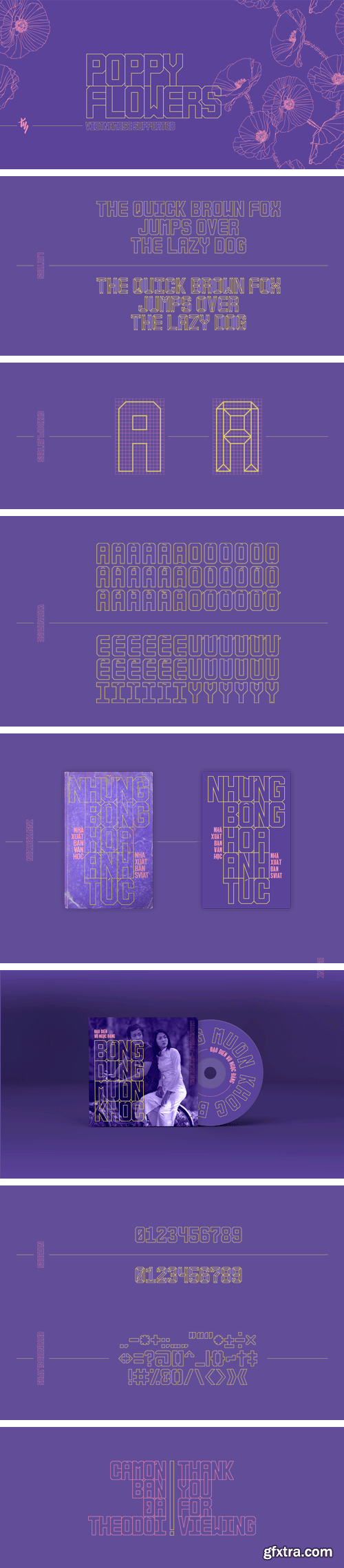
Poppy Flowers Font
Poppy Flowers is a vintage font inspired by the illustrations on the cover of the old books. Poppy Flowers typeface has a square shape with thin border and the way to add accents in Vietnamese is wonderful. The typeface has supported for Vietnamese.